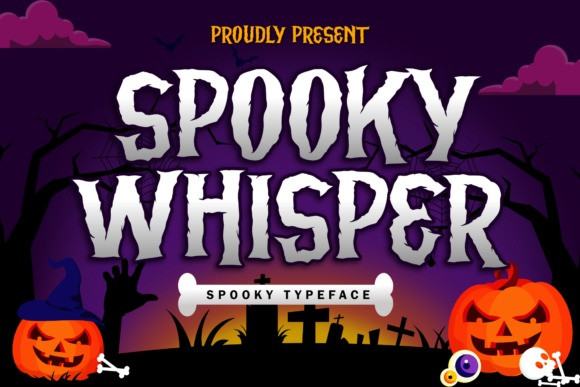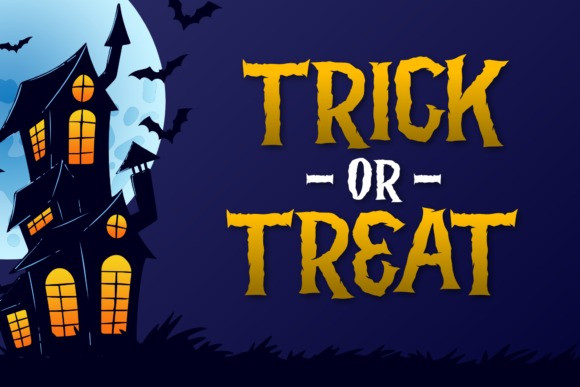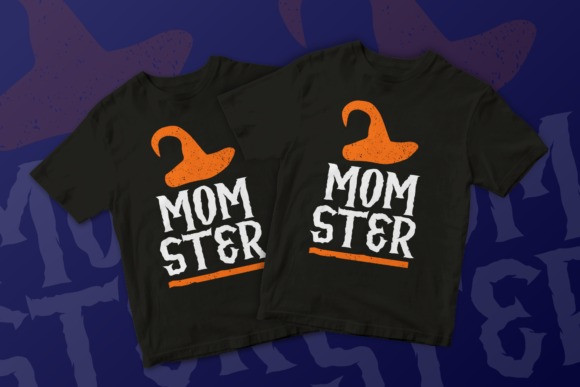
Spooky Whisper Font
Spooky Whisper is a cool, scary and bold display font. It is perfect for Halloween crafts, horror movie posters, t-shirts and anything else that needs a spectacular look!